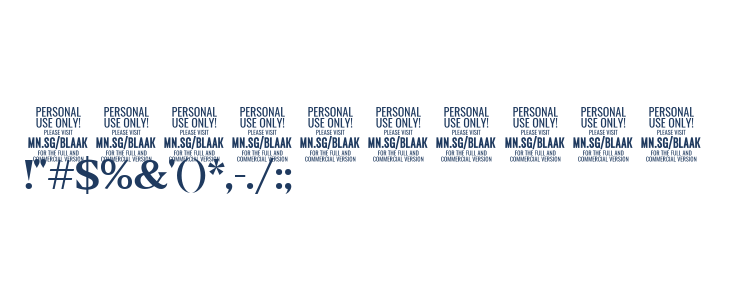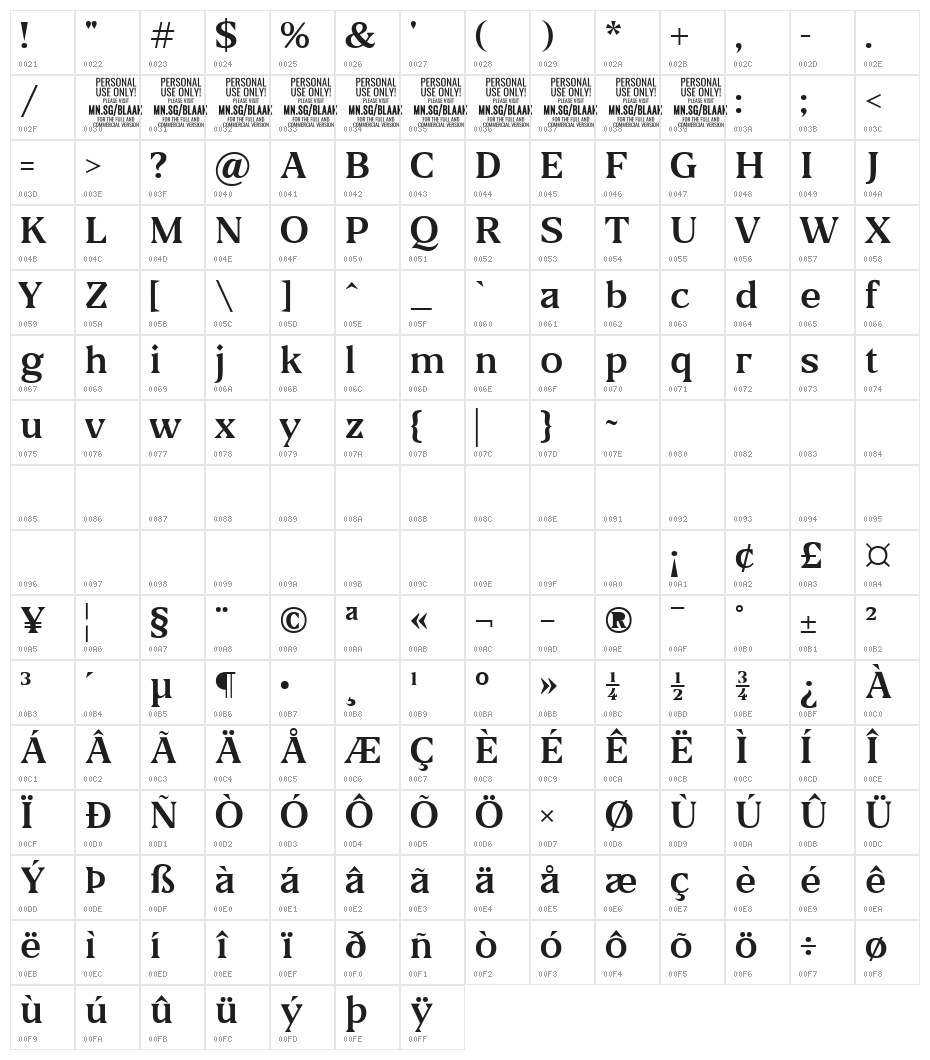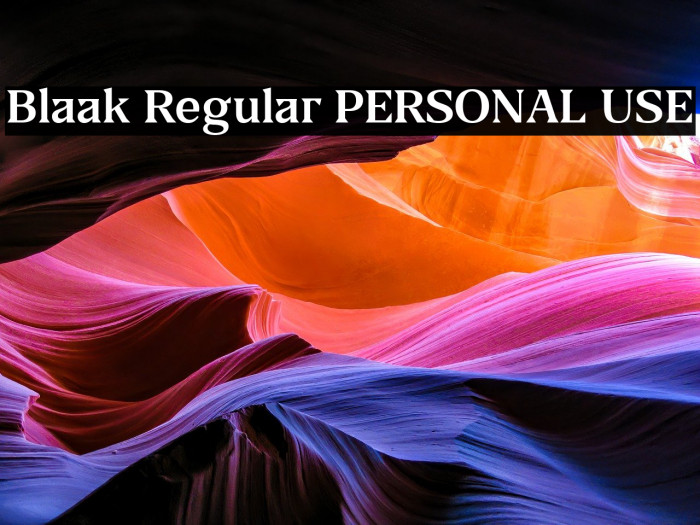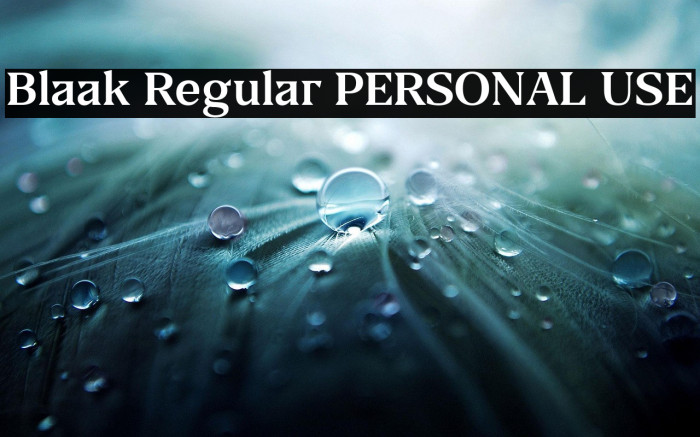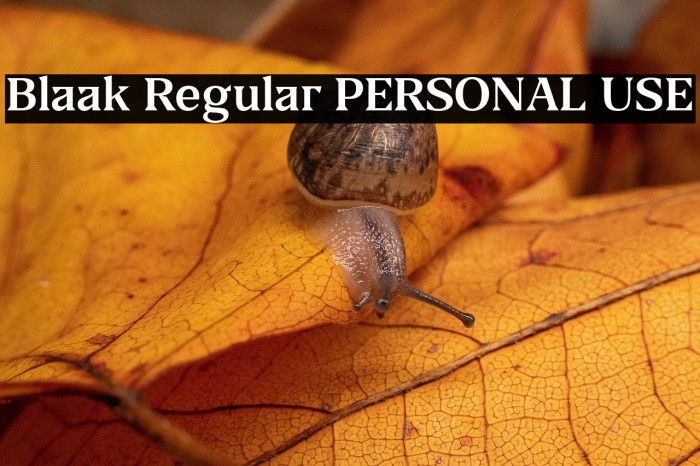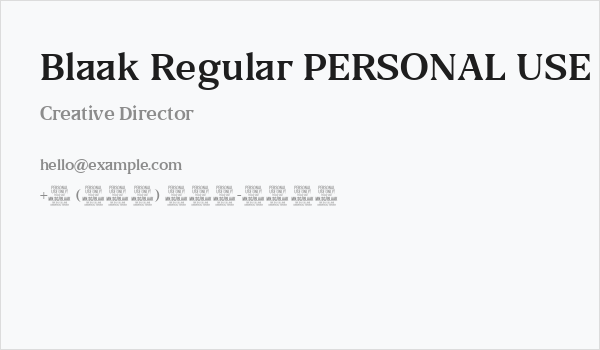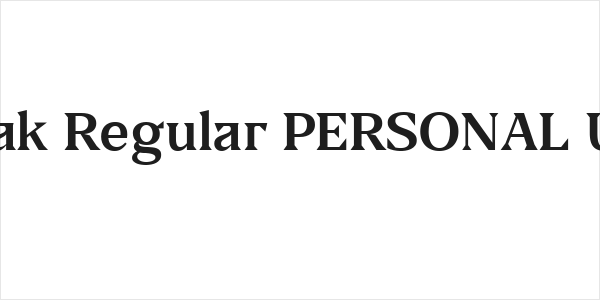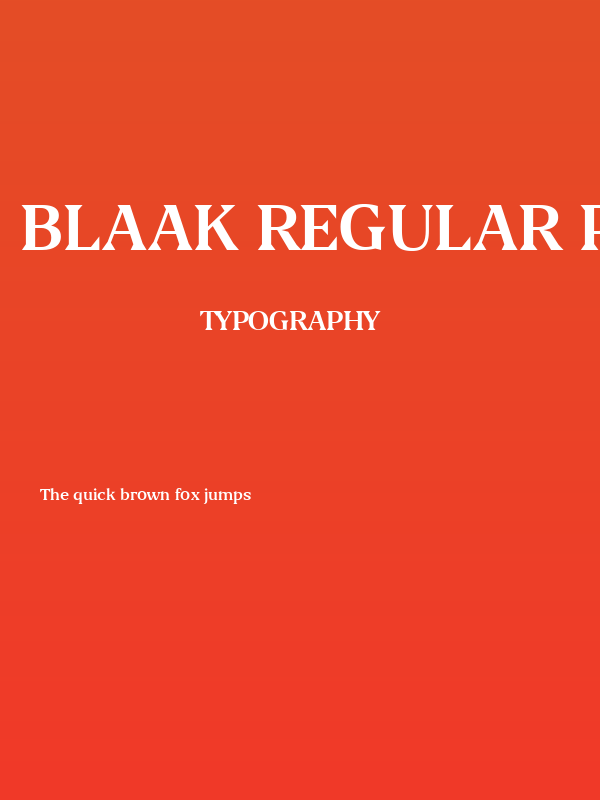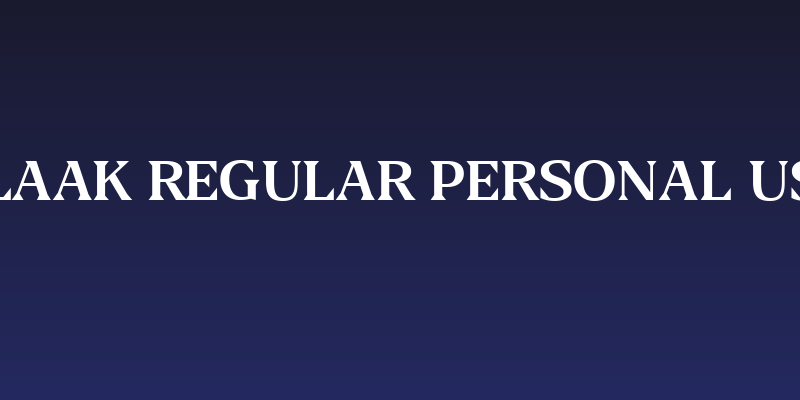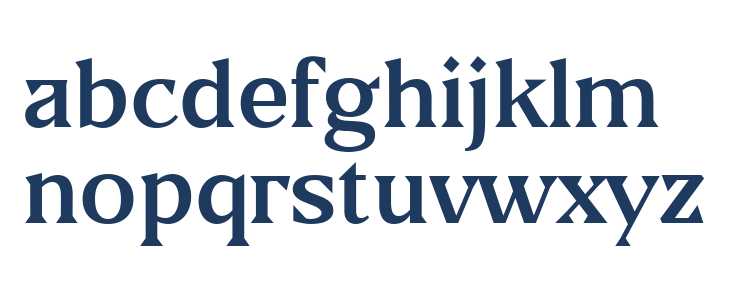
Blaak Regular PERSONAL USE Font
Blaak Regular PERSONAL USE Description
This font features a bold and elegant serif style, characterized by its strong, thick strokes and high contrast between thick and thin lines. The uppercase letters exhibit a classic and authoritative presence, while the lowercase letters maintain a refined and sophisticated look. The font's design includes sharp serifs and a balanced structure, making it suitable for both traditional and modern applications. The numerals and special characters are designed with the same attention to detail, ensuring consistency across all glyphs. This font is ideal for creating impactful headlines, elegant invitations, and sophisticated branding materials.